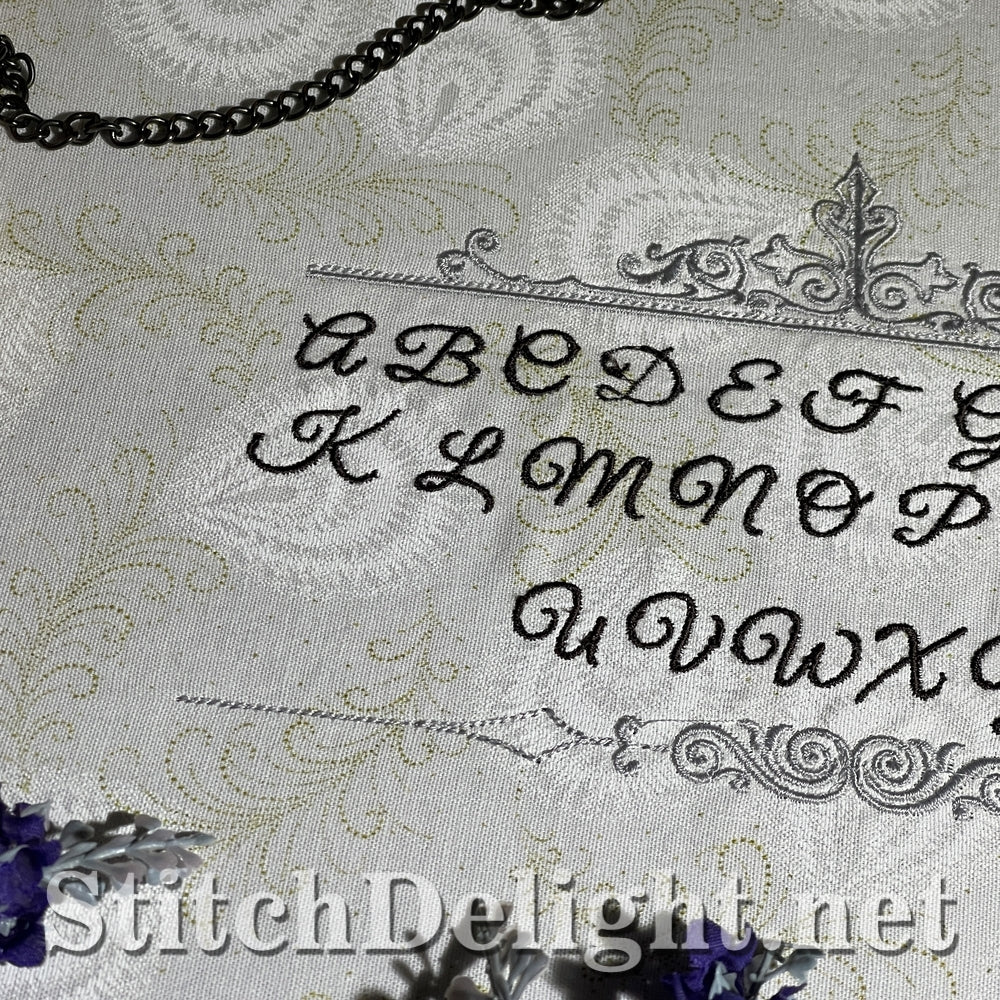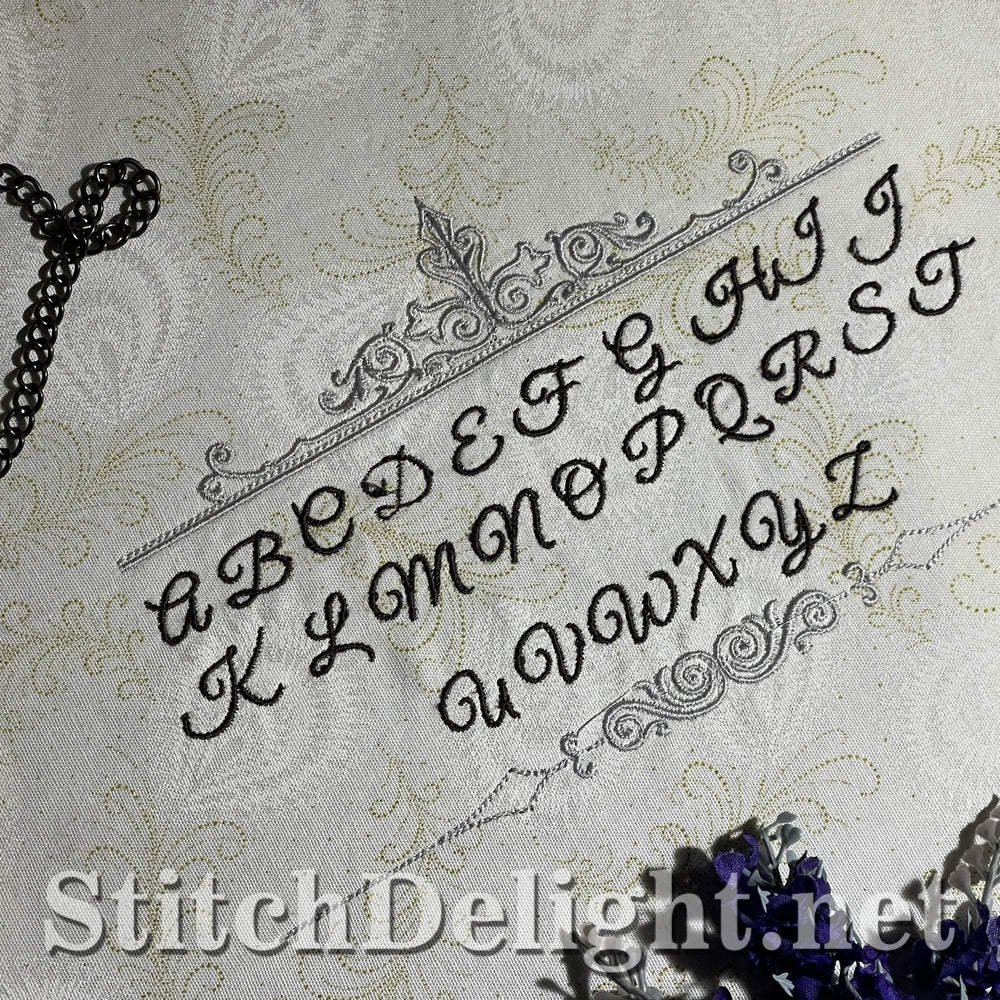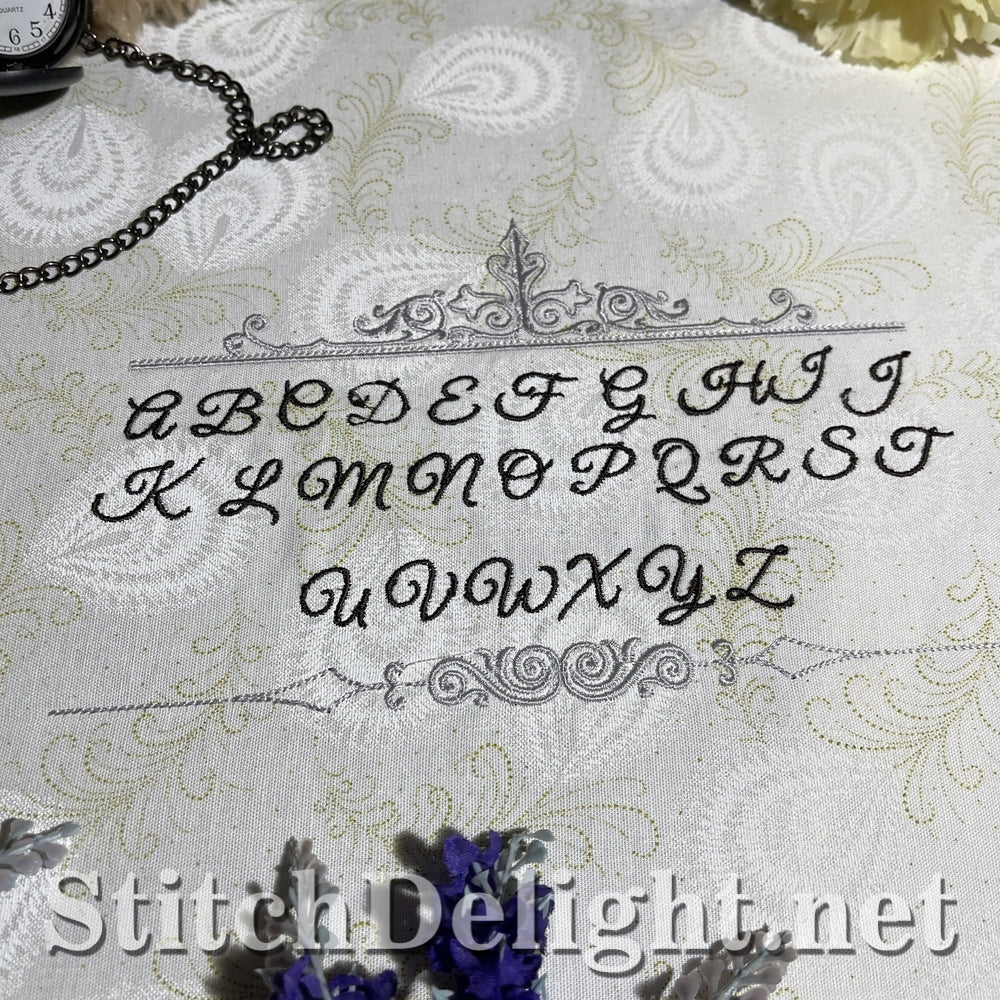
This font has an average height of just 15.3 mm (0.6 inches), making
it a perfect reading font for any of your projects.
This font is small and elegant. To make it easier to incorporate into